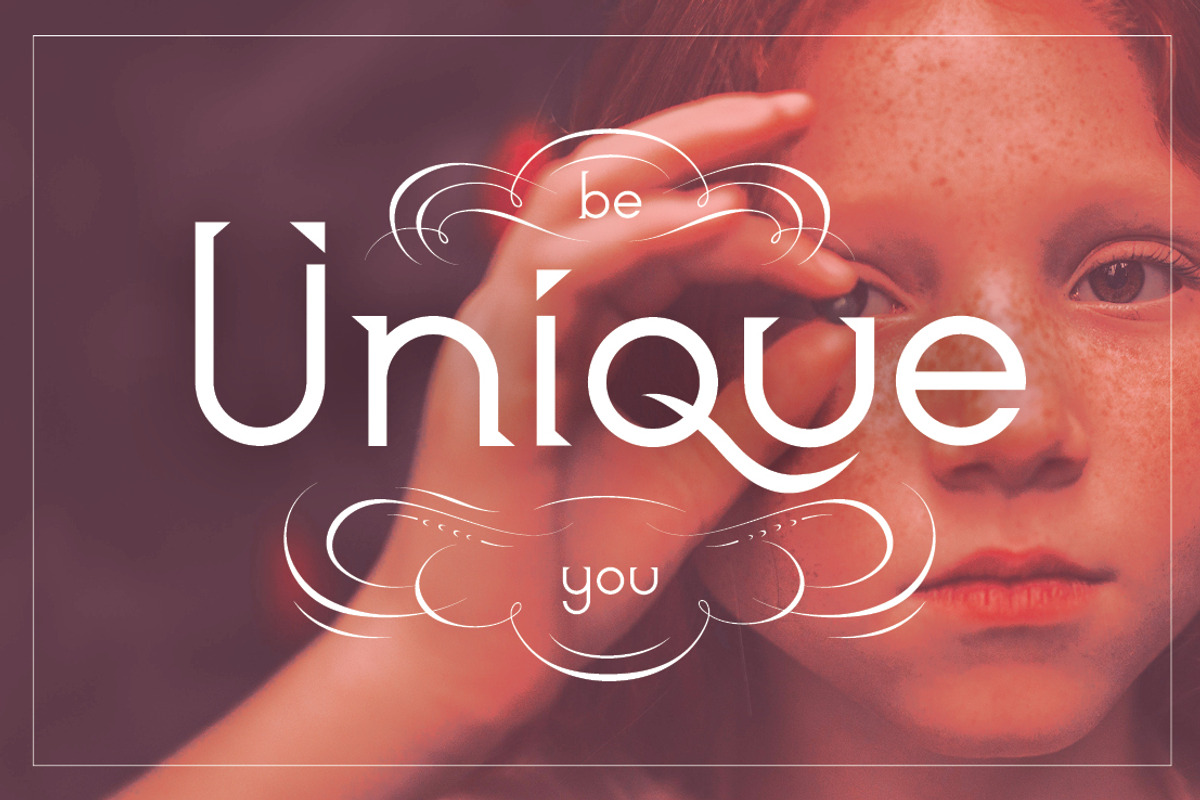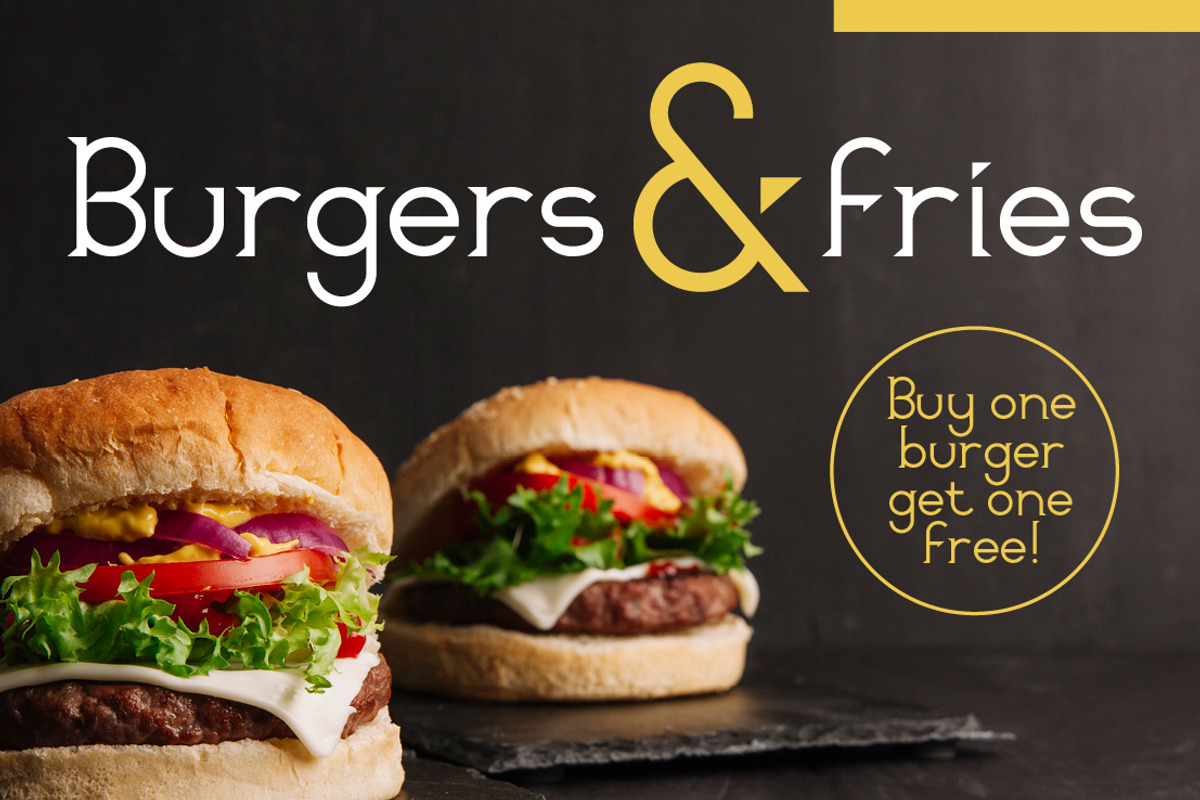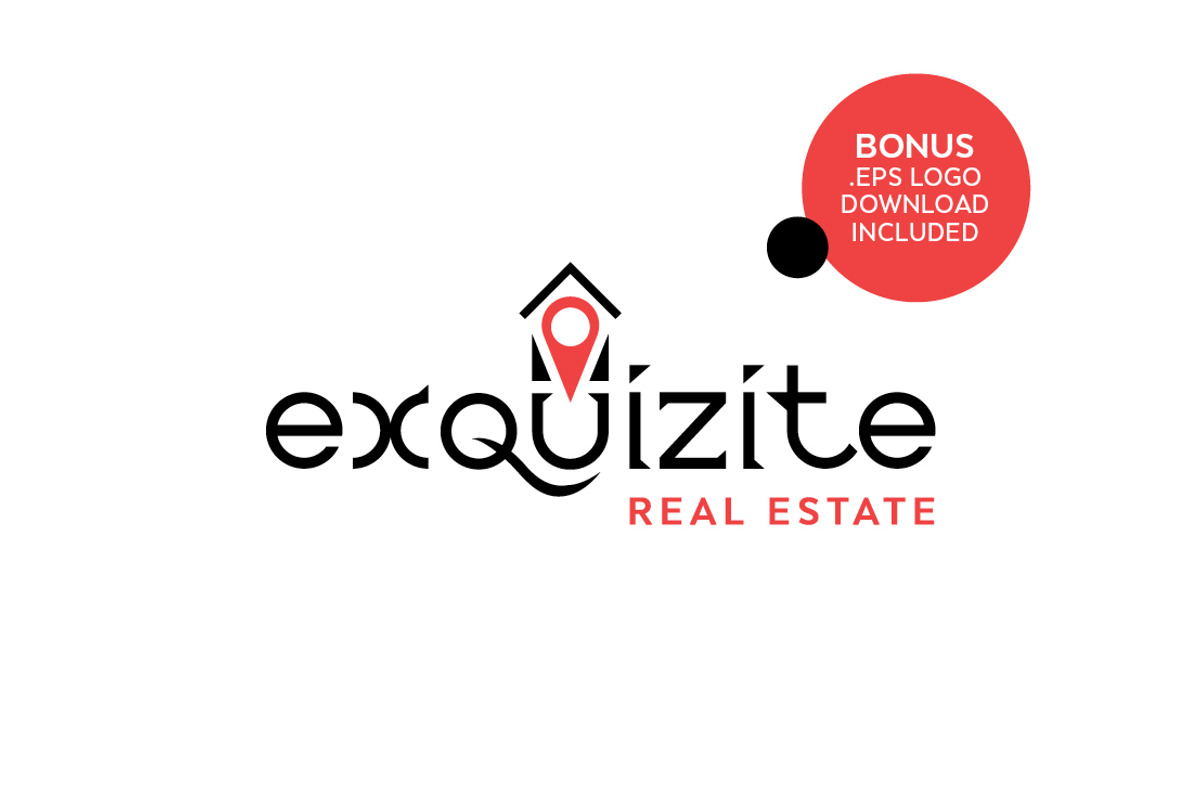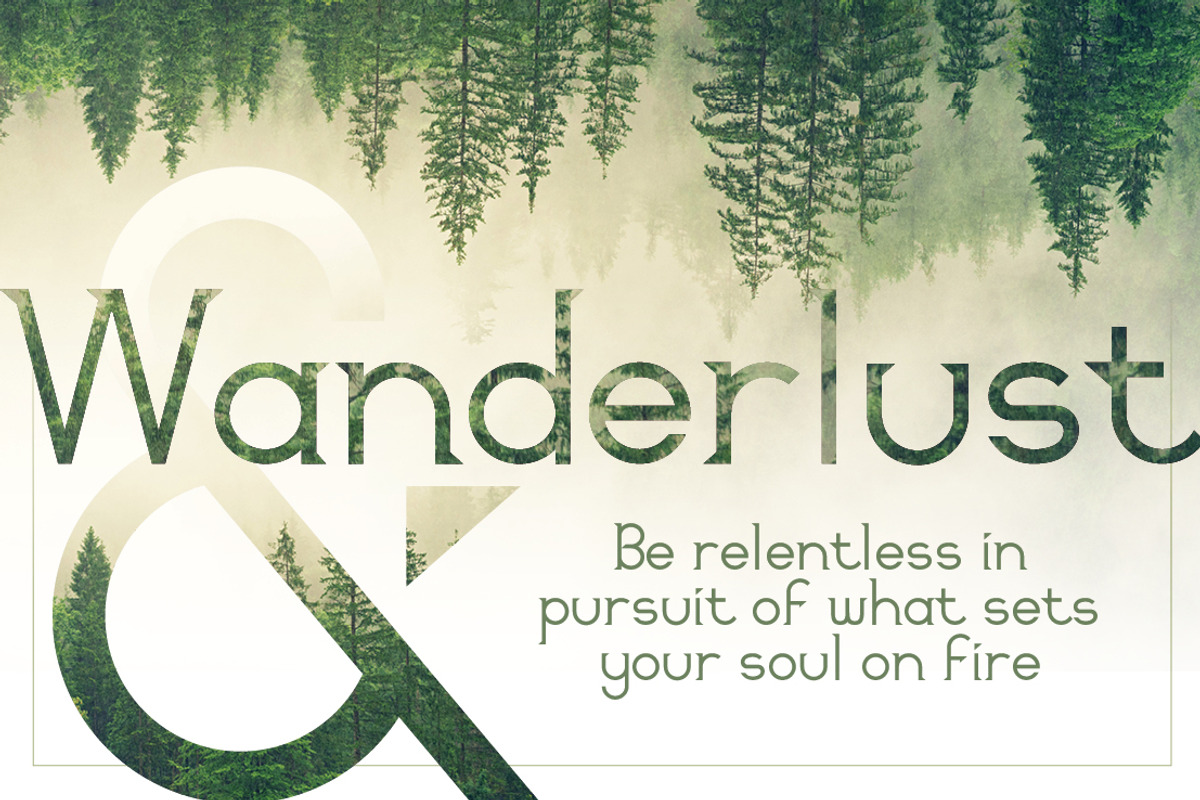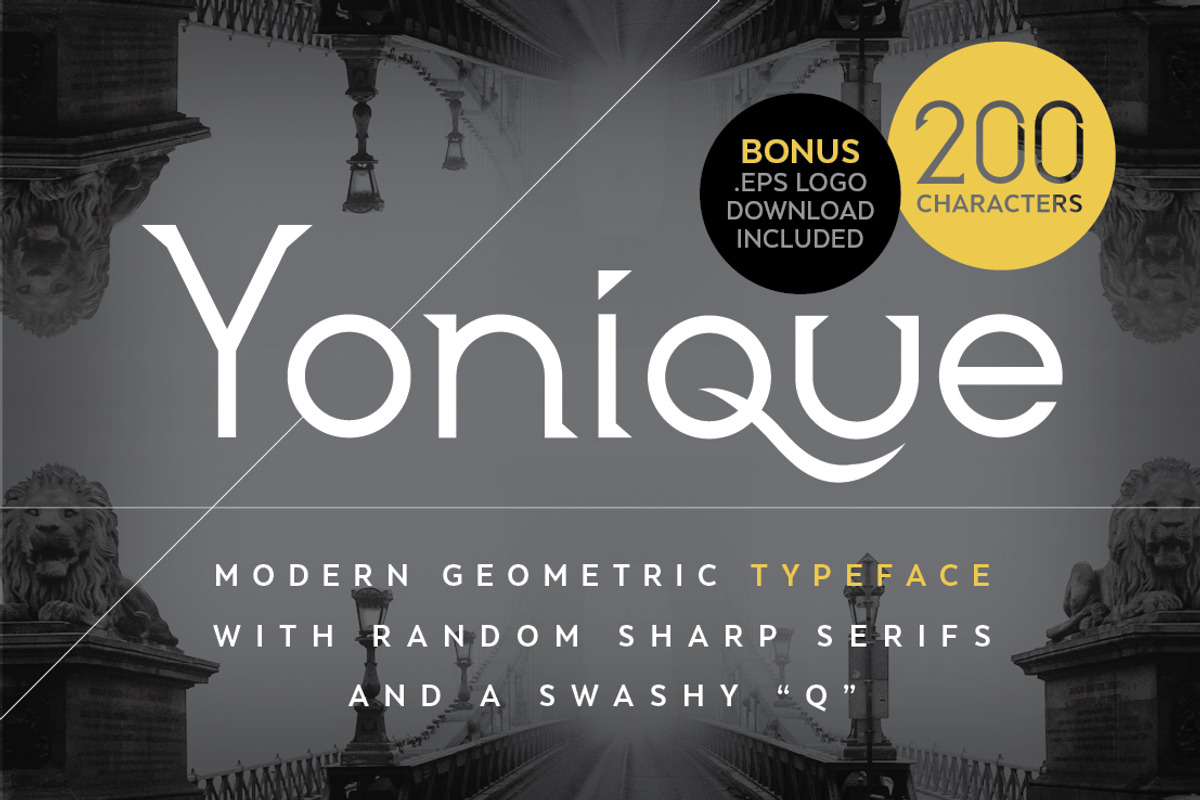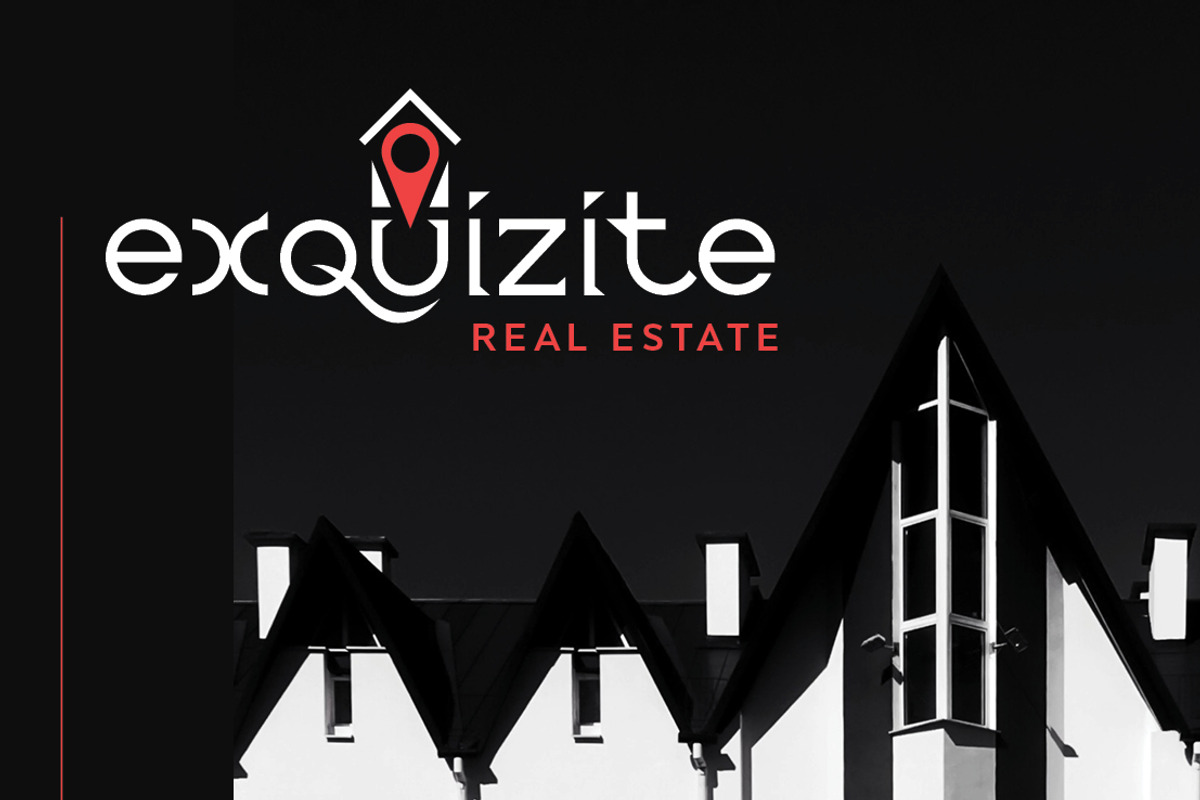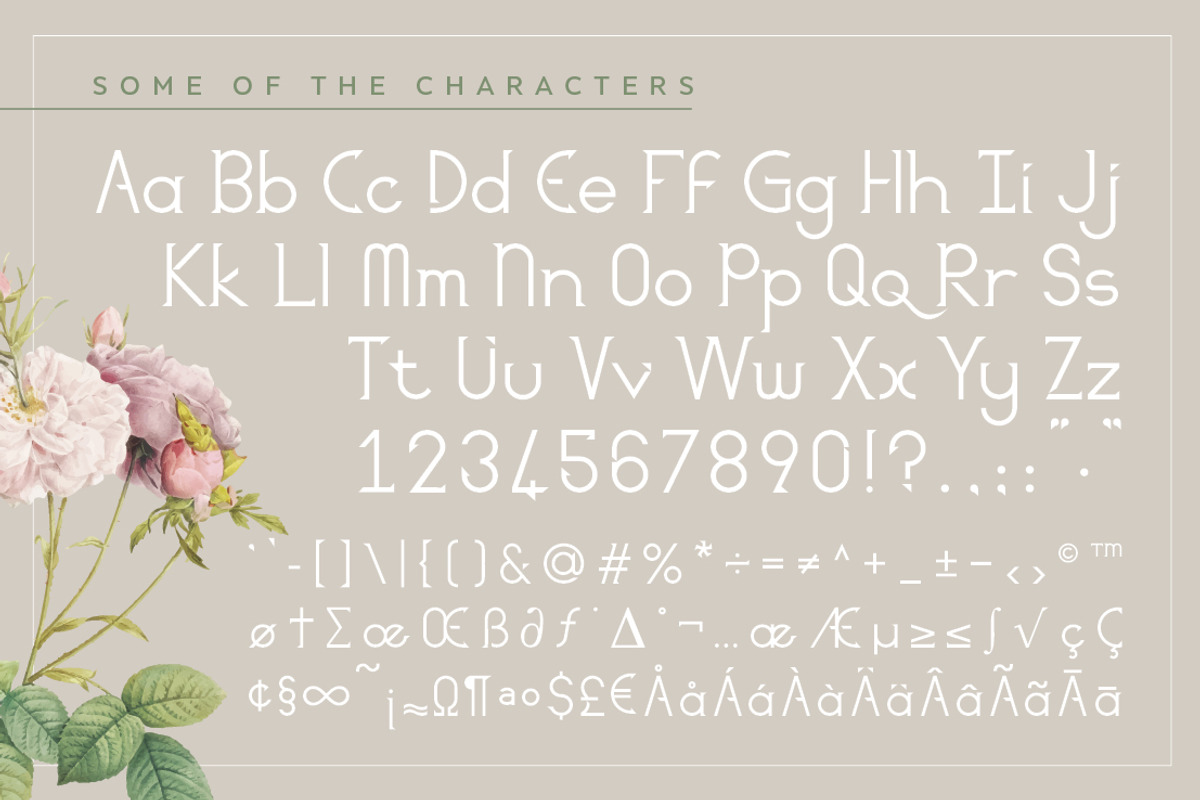
Yonique sharp serif font
Yonique was initially created to make beautiful logos, with a modern, unique look, but with readability intact. This typeface lends itself to modern, vintage, soft or bold designs. It has a geometric, sans-serif look, but contains well balanced sharp serifs. Yonique comes with 200 characters - including full uppercase and lowercase letters, numbers, extended symbols, punctuation and accents. As a bonus I added the Real estate logo as an .eps file.
- It has a geometric, sans-serif look, but contains well balanced sharp serifs.
- Yonique comes with 200 characters - including full uppercase and lowercase letters, numbers, extended symbols, punctuation and accents.
- It has a geometric, sans-serif look, but contains well balanced sharp serifs.
- Yonique comes with 200 characters - including full uppercase and lowercase letters, numbers, extended symbols, punctuation and accents.
Why Yonique sharp serif font is worth a look
Yonique sharp serif font by Plush One fits naturally into Branding, posters, packaging, typography.